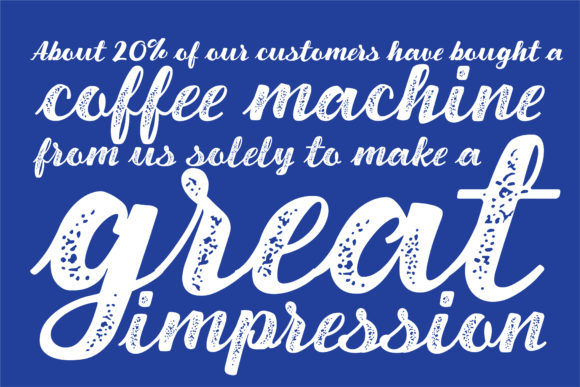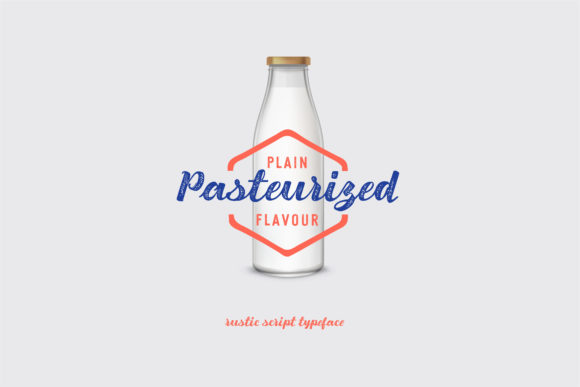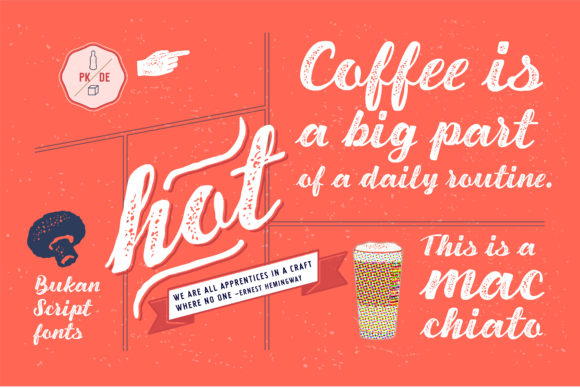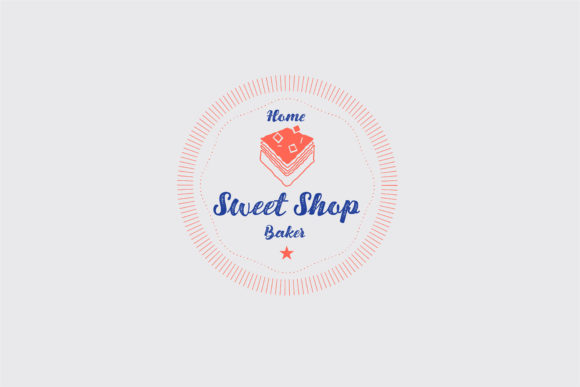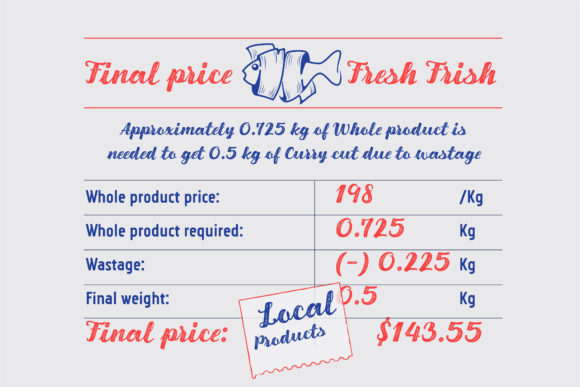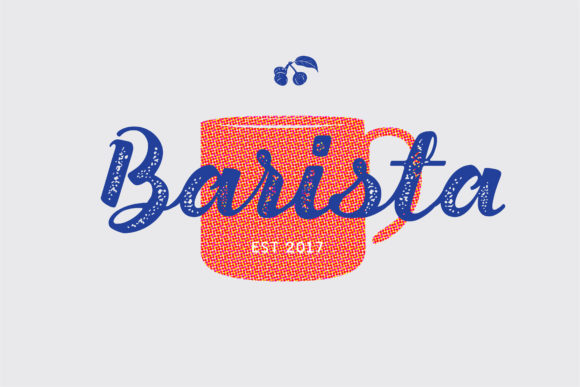
Bugan Script: Rustic Font – A Masterpiece of Handwritten Elegance
Are you a designer or crafter looking for a font that can add a touch of rustic charm to your creations? Look no further than Bugan Script: Rustic, an enchanting handwritten font that is sure to captivate your audience. With its distinct and well-balanced letters, this font is a masterpiece that can elevate your designs to new heights.
The Unique Charm of Bugan Script: Rustic
Bugan Script: Rustic is a one-of-a-kind font that boasts a unique and irresistible charm. Its handwritten style is reminiscent of rustic wood signs, vintage posters, and homemade crafts, evoking a sense of warmth and nostalgia. The font’s distinct letters are carefully crafted to create a sense of movement and fluidity, making it perfect for a wide range of design applications.
One of the standout features of Bugan Script: Rustic is its incredible versatility. This font can be used for a variety of design projects, from rustic wedding invitations and signage to craft labels and product packaging. Whether you’re creating a cohesive brand identity or a one-of-a-kind design, Bugan Script: Rustic is the perfect choice. Its adaptable style allows it to seamlessly blend with various design elements, ensuring that your creations stand out from the crowd.
Design Possibilities Are Endless
With Bugan Script: Rustic, the design possibilities are endless. Imagine using this font to create:
- Rustic wedding stationery, such as invitations, save-the-dates, and thank-you cards
- Vintage-inspired posters and flyers for events, promotions, or product launches
- Handmade craft labels and packaging for a personal touch
- Unique signage for restaurants, cafes, or shops
- Beautiful journal pages, planners, and stationery
The font’s flexibility and charm make it an excellent choice for designers and crafters who want to add a personal touch to their creations.
Why Choose Bugan Script: Rustic?
So, why should you choose Bugan Script: Rustic for your design projects? Here are just a few compelling reasons:
- Unique style: Bugan Script: Rustic boasts a distinctive and eye-catching style that sets it apart from other fonts
- Highly versatile: This font can be used for a wide range of design applications, from rustic to elegant
- Easy to read: Despite its handwritten style, Bugan Script: Rustic is surprisingly easy to read, making it perfect for body text and headlines
- Timeless appeal: The font’s rustic charm ensures that it will remain a timeless classic, never going out of style
Whether you’re a seasoned designer or a crafty DIY enthusiast, Bugan Script: Rustic is an excellent addition to your font collection.
Get Creative with Bugan Script: Rustic
Ready to fall in love with Bugan Script: Rustic? This enchanting font is waiting to be explored and incorporated into your designs. With its unique charm, versatility, and timeless appeal, Bugan Script: Rustic is sure to become your go-to font for creating spectacular designs that capture the hearts of your audience.